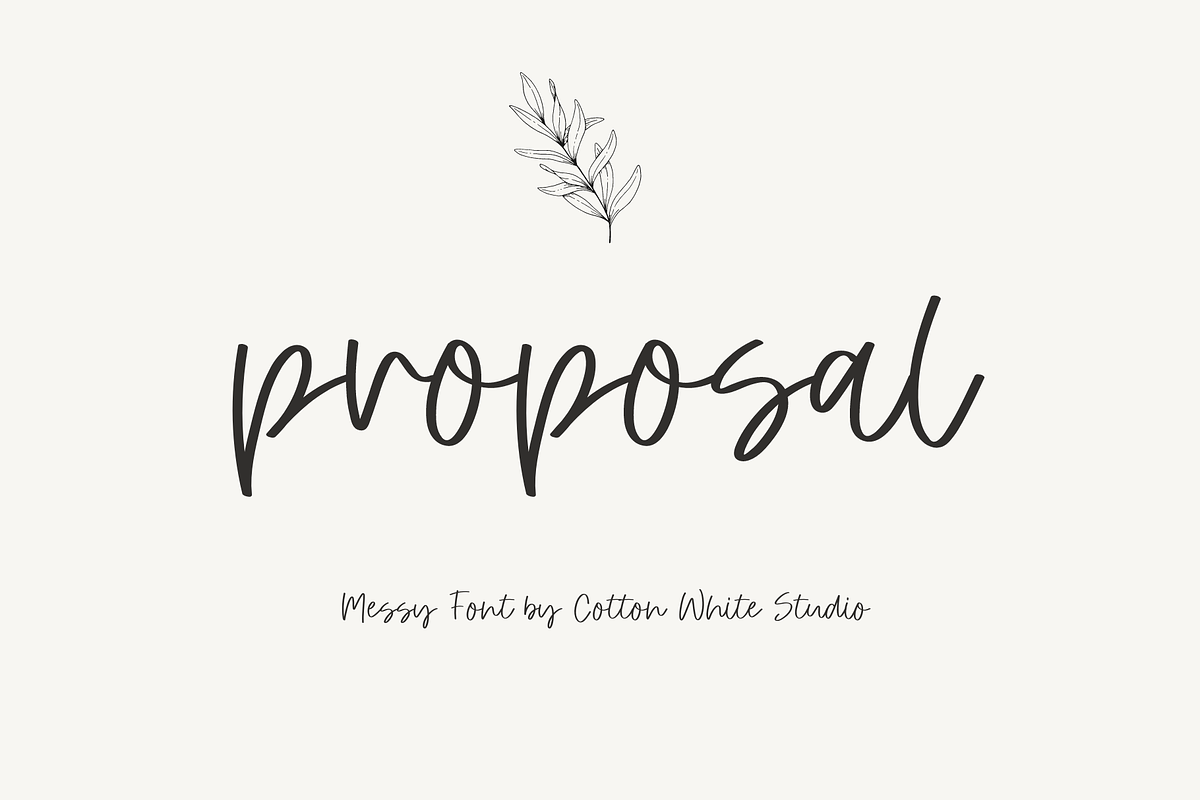
Proposal Font Free Download is a romantic and elegant script typeface designed to capture the essence of love, celebration, and timeless beauty. With its flowing curves and graceful strokes, this font is perfect for wedding invitations, engagement announcements, branding for florists or bridal boutiques, and heartfelt social media graphics.
Its handwritten style brings warmth and personality to your designs, while maintaining a polished, luxurious feel. Whether you're designing for a special day or creating content that needs a soft, emotional touch, Proposal is your go-to font.
Designers adore Proposal for its versatility and emotional impact. Want to add a touch of romance to your next project? Download Proposal Font Free Download and let your typography speak the language of love and elegance.